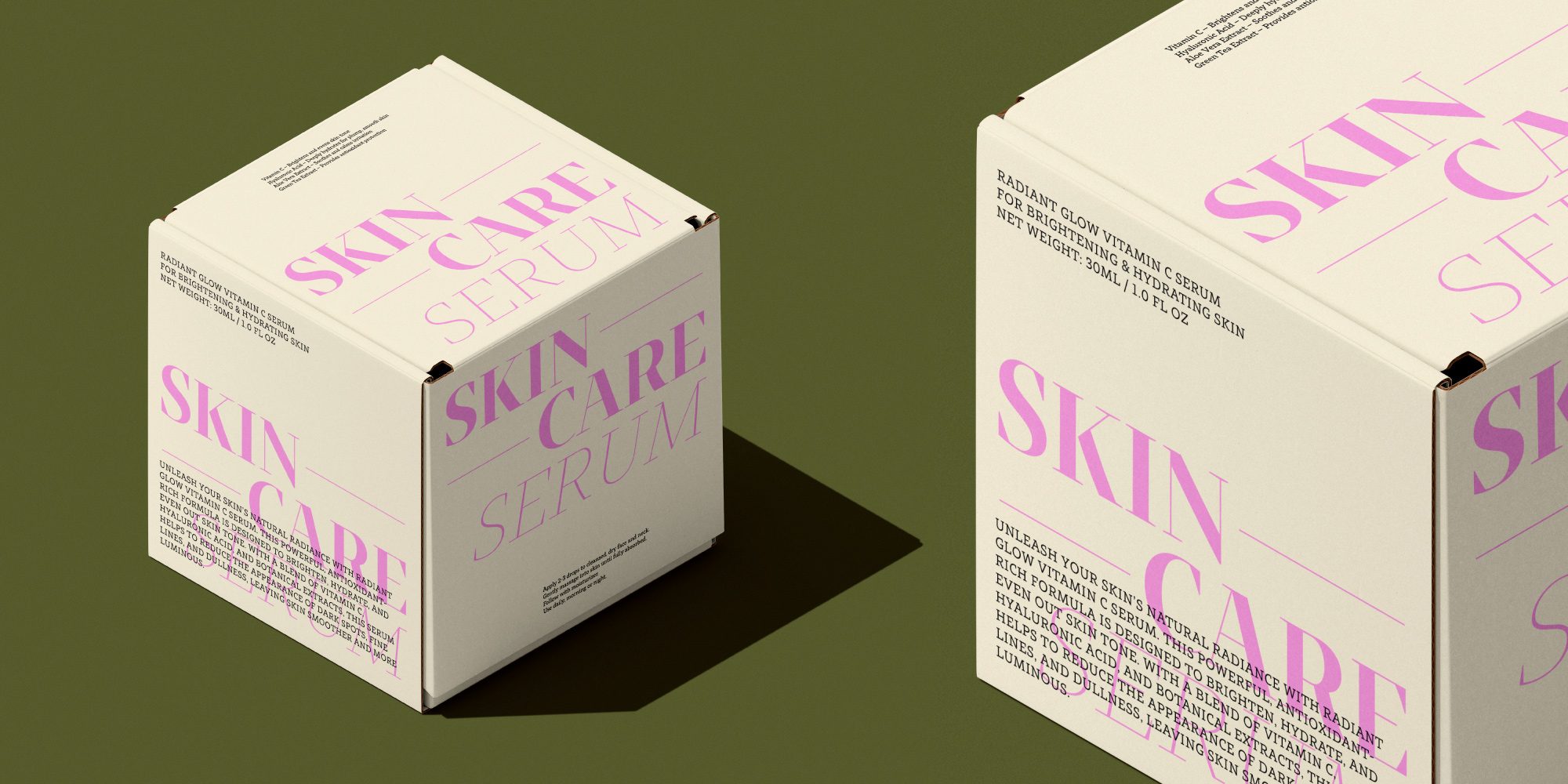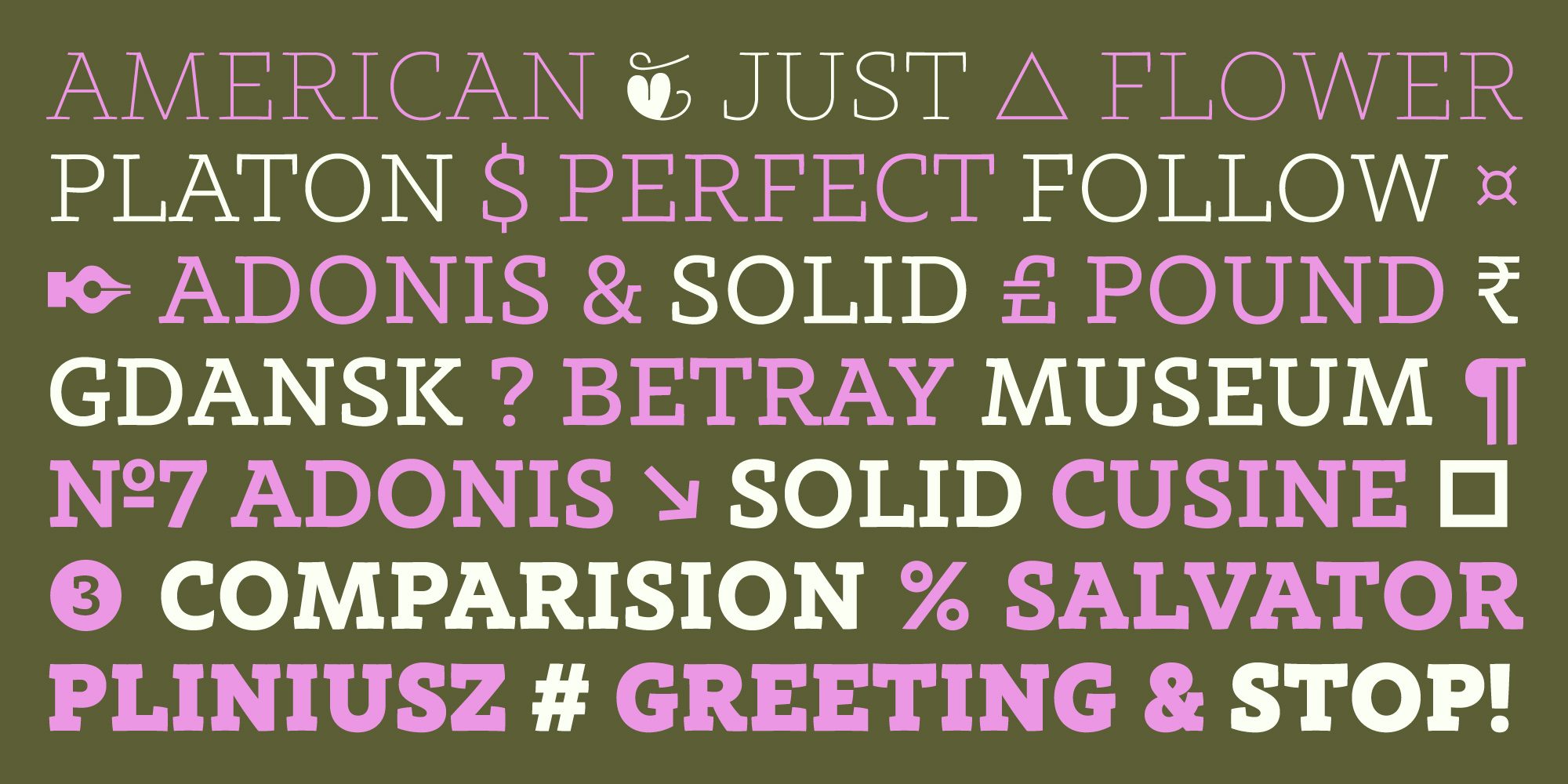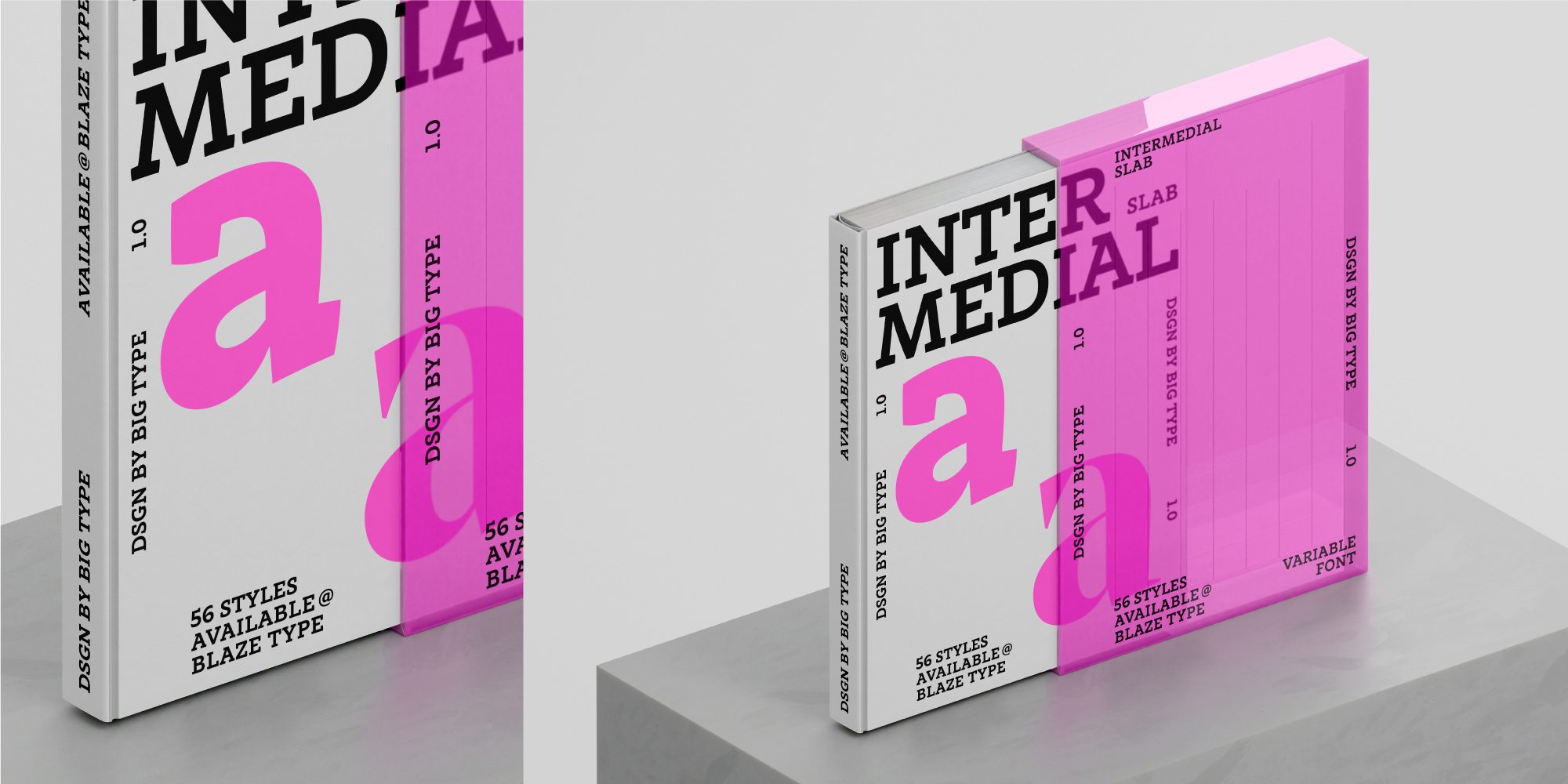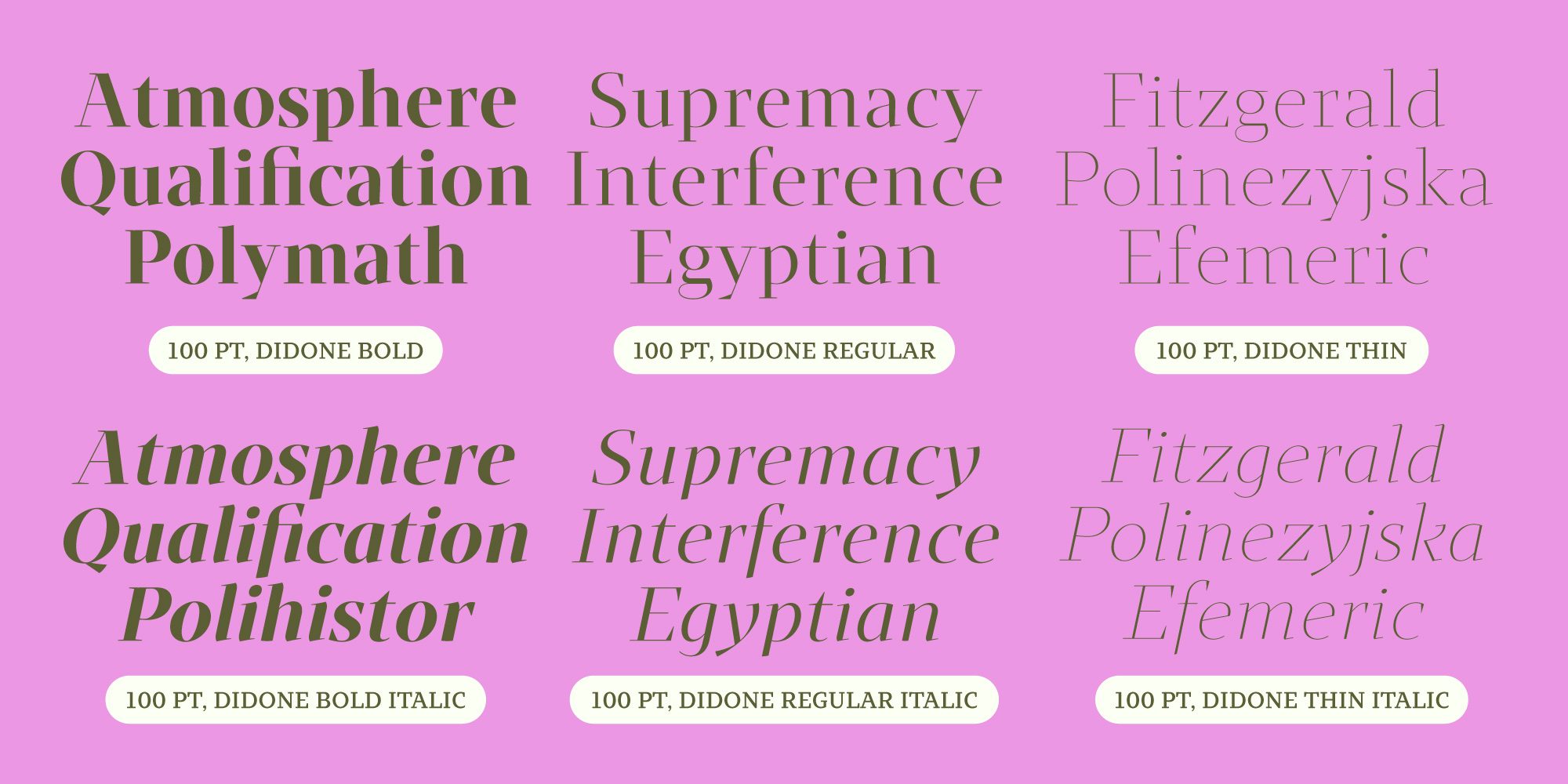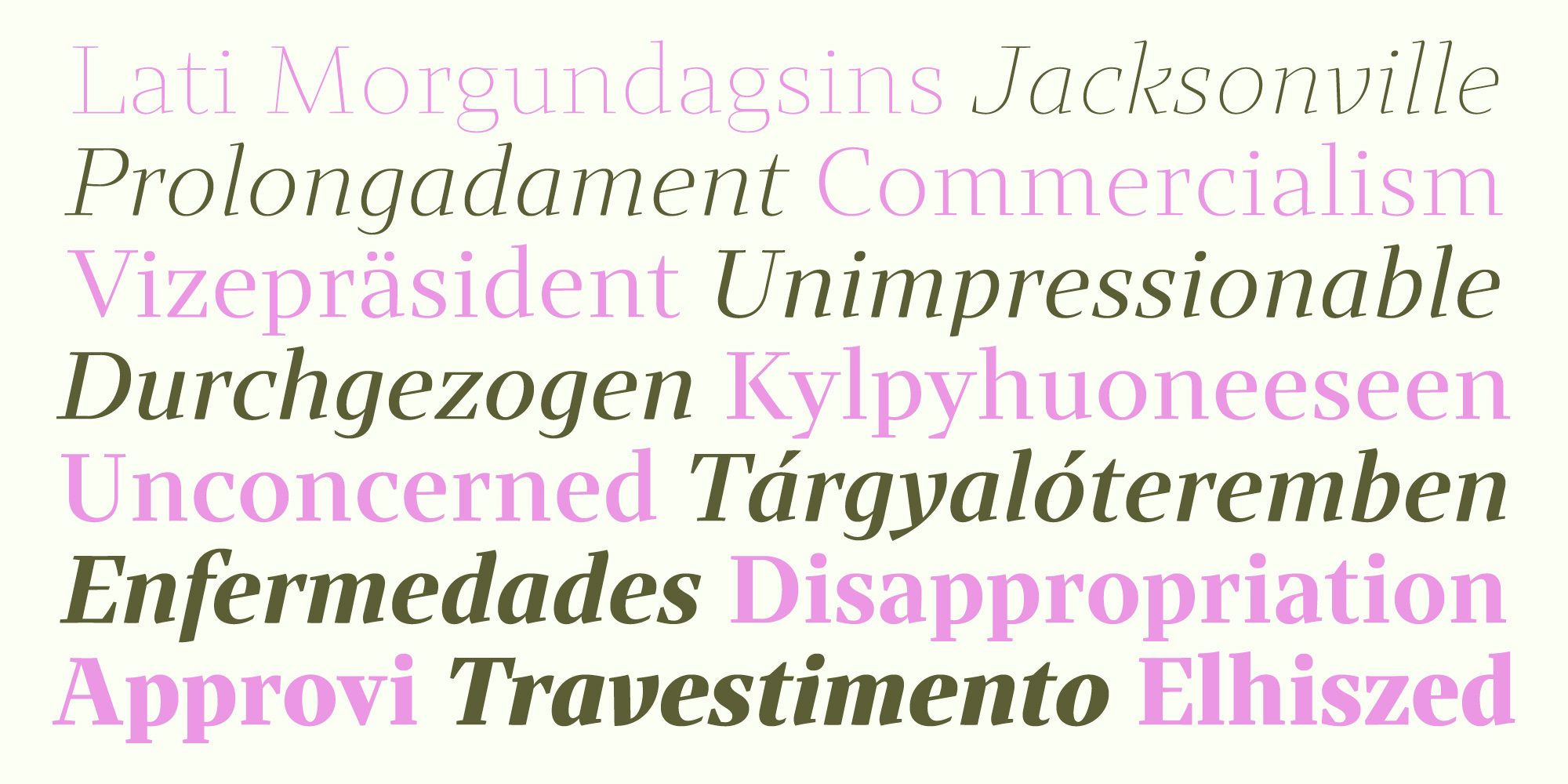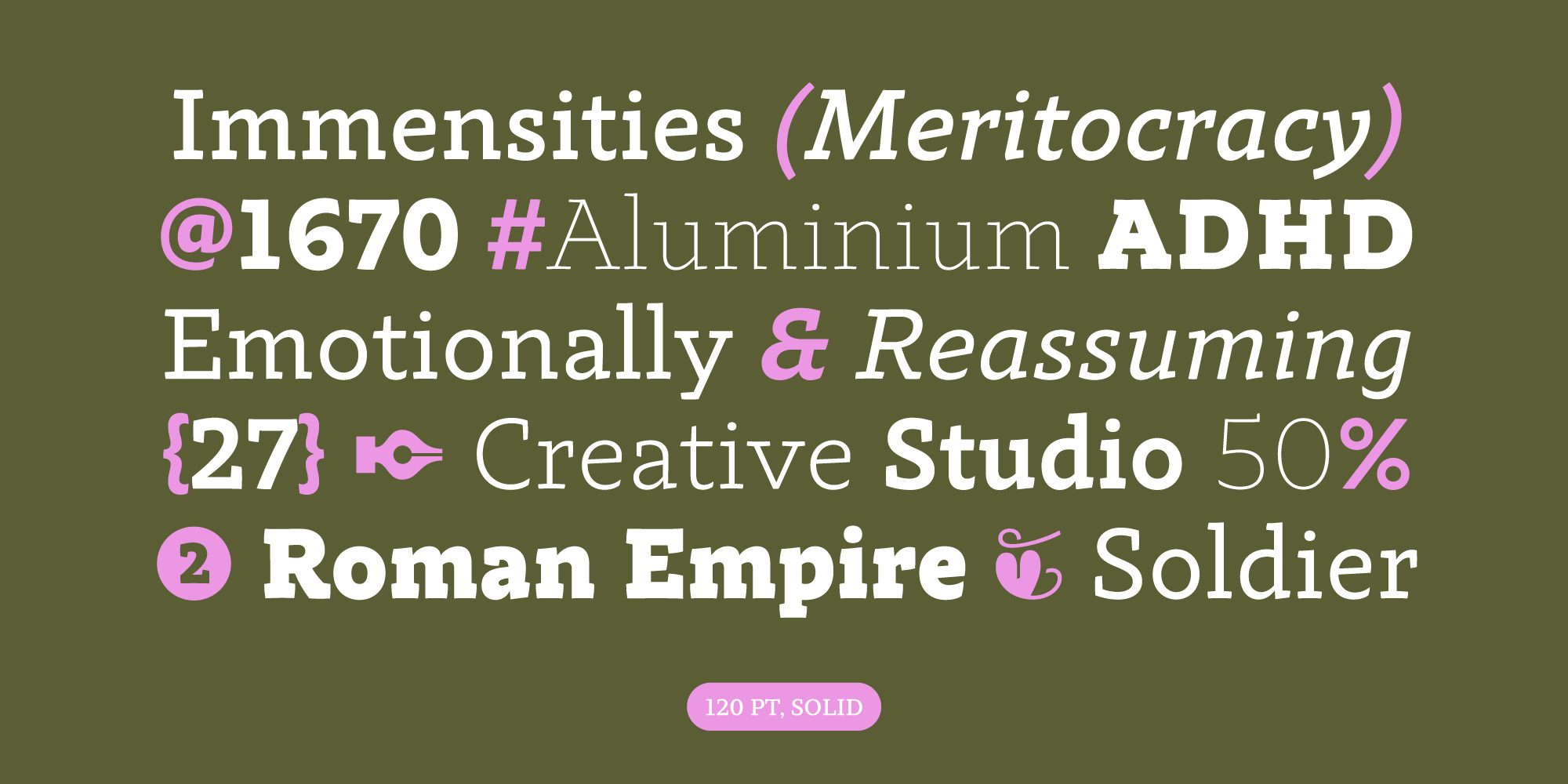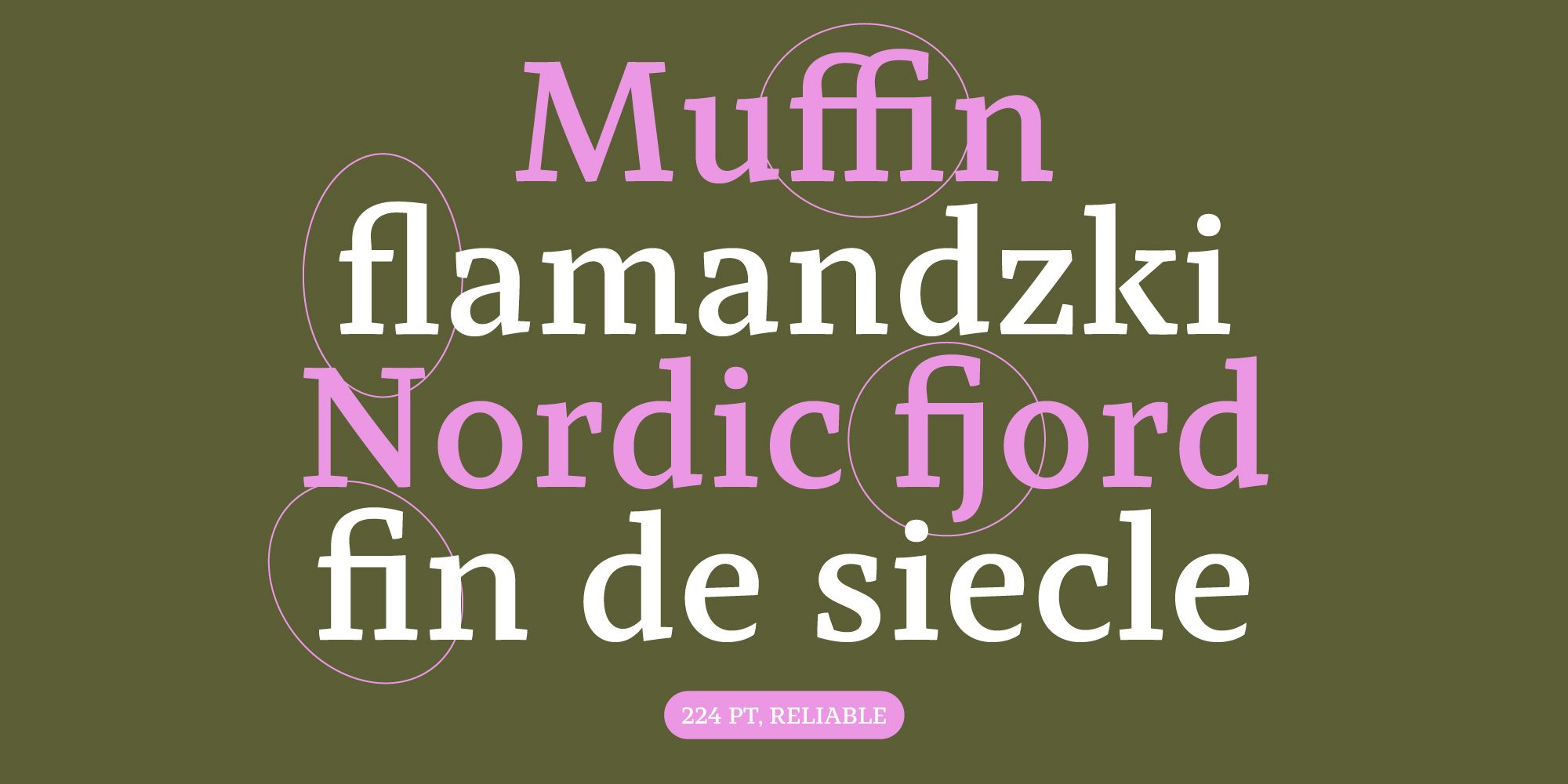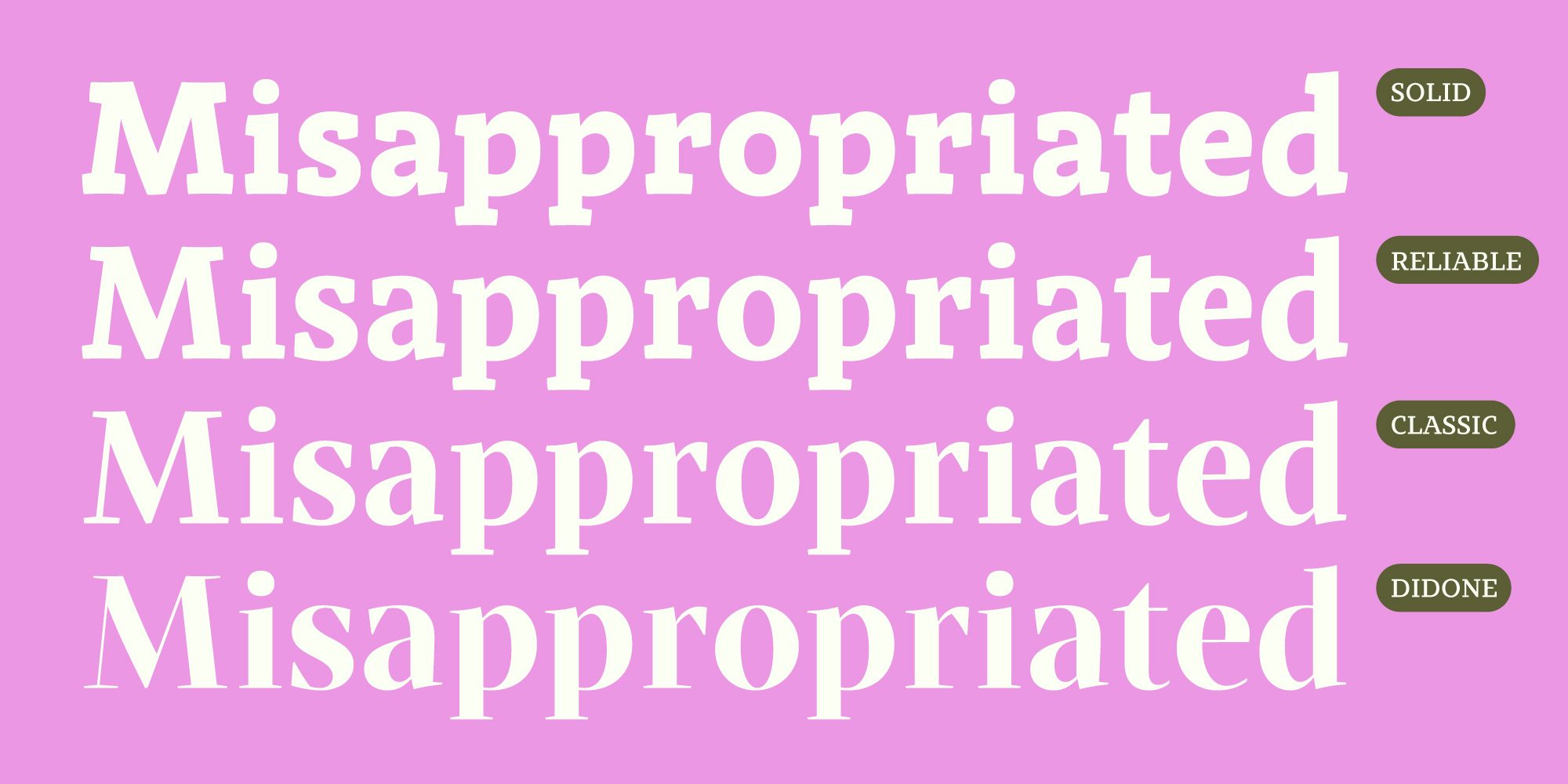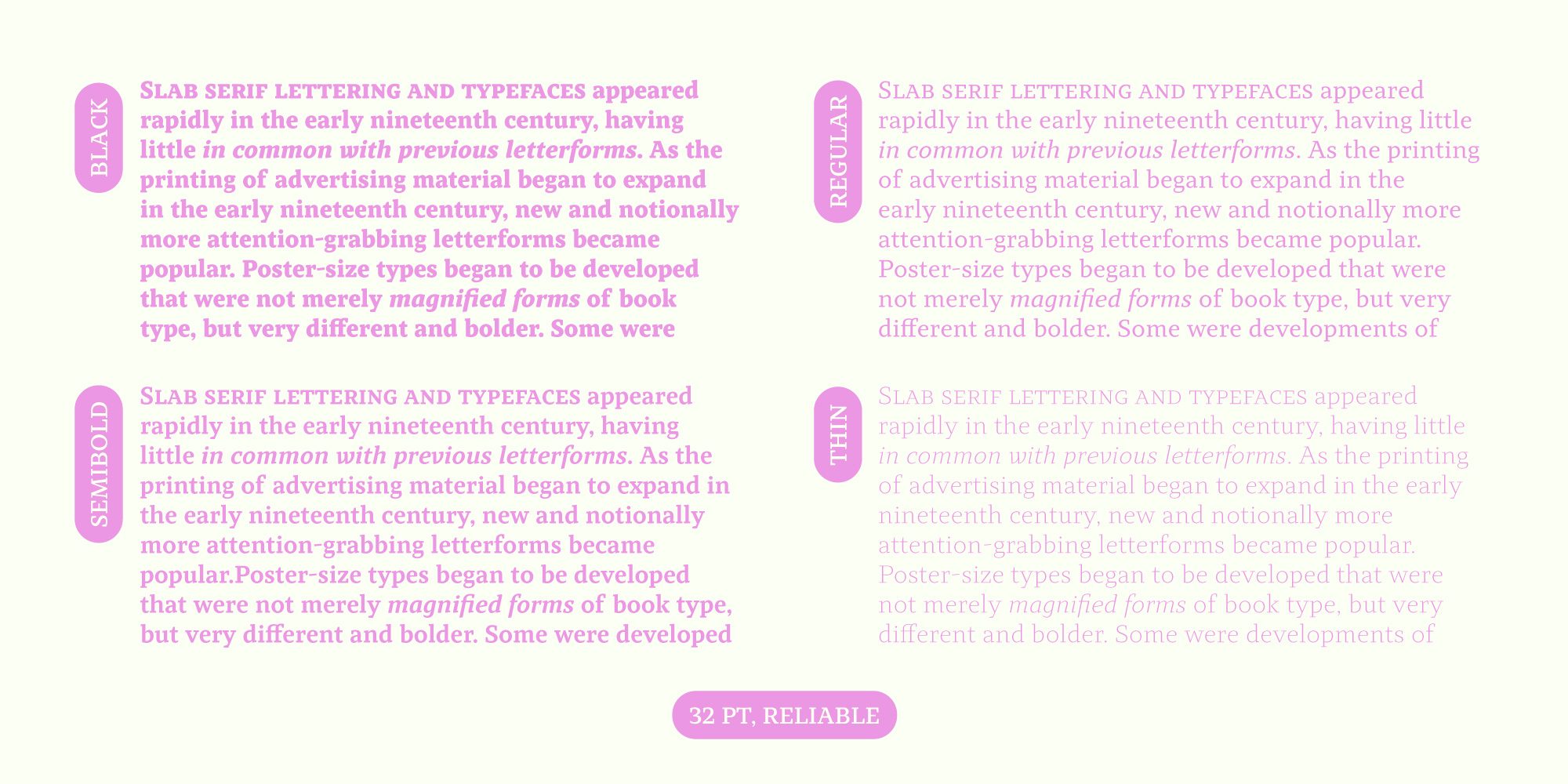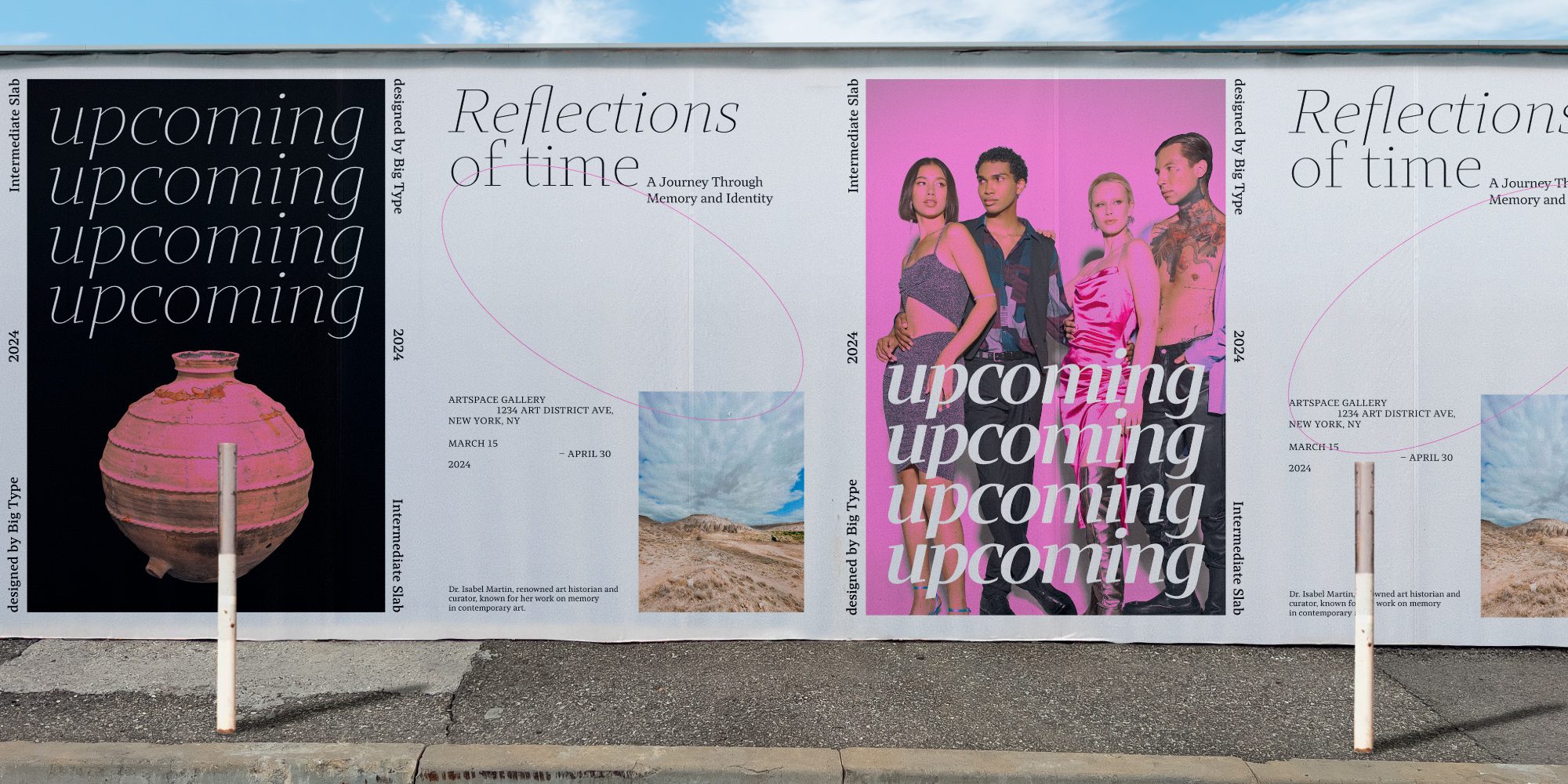
Intermedial Slab
Intermedial Slab is a highly versatile and robust type family that offers both high-contrast and low-contrast slab serif styles, catering to a wide range of design needs. Each style is meticulously crafted with a humanistic touch, bringing warmth, precision, and an approachable quality to the typeface. The humanistic design approach ensures that each character feels balanced and natural, enhancing readability while maintaining a distinctive aesthetic.
This versatility in contrast allows Intermedial Slab to perform excellently across various design applications. The high-contrast styles are ideal for creating dramatic, eye-catching headlines, while the low-contrast options are optimized for body text, providing clarity and comfort for longer reading. By mixing and matching these contrast levels, designers can establish a dynamic typographic hierarchy that guides the reader’s eye and enriches the overall design.
The adaptability of Intermedial Slab makes it a powerful asset for creating cohesive and flexible frameworks within any design system. Whether for branding, editorial layouts, user interfaces, or print materials, this type family’s range of styles allows for seamless integration across platforms. Designers can leverage its flexibility to craft visually engaging, responsive typographic solutions, making Intermedial Slab an essential tool for building unified, adaptive, and highly effective design systems.
Karol Mularczyk